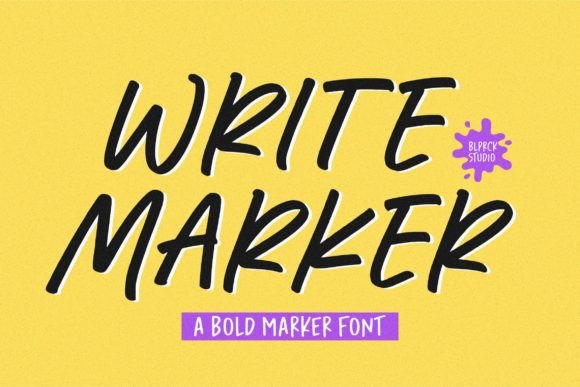
Welcome to the world of Write Marker, the hand-picked script font that's ready to weave its magic into your creations. Dive into a realm of endless possibilities, where your creativity takes center stage and your designs come alive with a lively, whimsical touch. Say goodbye to monotonous fonts and embark on a journey of self-expression like never before.
Imagine your next sweater design infused with the playful energy of Write Marker. Its bold strokes and contagious charm will transform your vision into a captivating masterpiece. This font is the perfect canvas for your creativity, inviting you to explore new horizons and make a statement with every stitch. Let your designs radiate joy, individuality, and a spirit that's uniquely yours.
Write Marker isn't just a font; it's an experience. It's an invitation to let your imagination run wild, to embrace the unexpected, and to create designs that are as unique as you are. Its versatility knows no bounds, seamlessly adapting to a multitude of projects, from personalized greeting cards to eye-catching presentations.
Don't settle for ordinary fonts. Choose Write Marker, the font that sparks creativity, ignites passion, and leaves an unforgettable impression. Join the ranks of those who dare to be different, who embrace the power of self-expression, and who leave their mark on the world through their extraordinary designs.